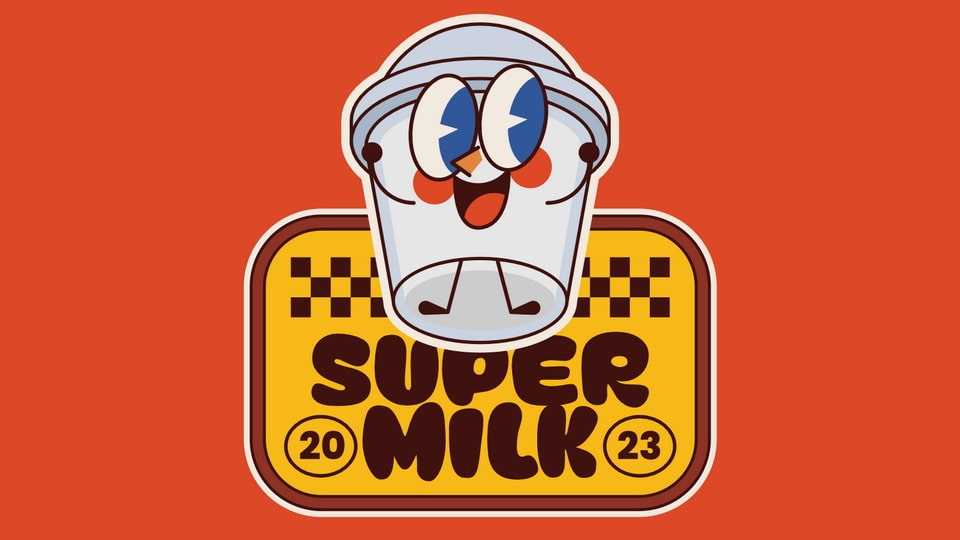
Download Super Milk font, a hand crafted typeface that infuses your designs with the joy of cartoon magic. Each character is designed to convey a sense of playful spontaneity and artistic flair, making it perfect for designs that require a touch of lighthearted creativity.